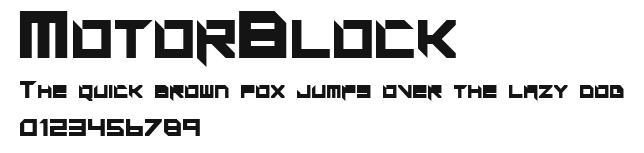
MotorBlock Preview
• Font Name: MotorBlock
• Full Font Name: MotorBlock
• Designer: Branum Design LLC
• Manufacturer: Branum Design LLC
About MotorBlock.ttf
MotorBlock.ttf is a modern, elegant sans-serif font designed for ultimate readability and visual harmony. Perfect for branding, headlines, web design, and print materials.